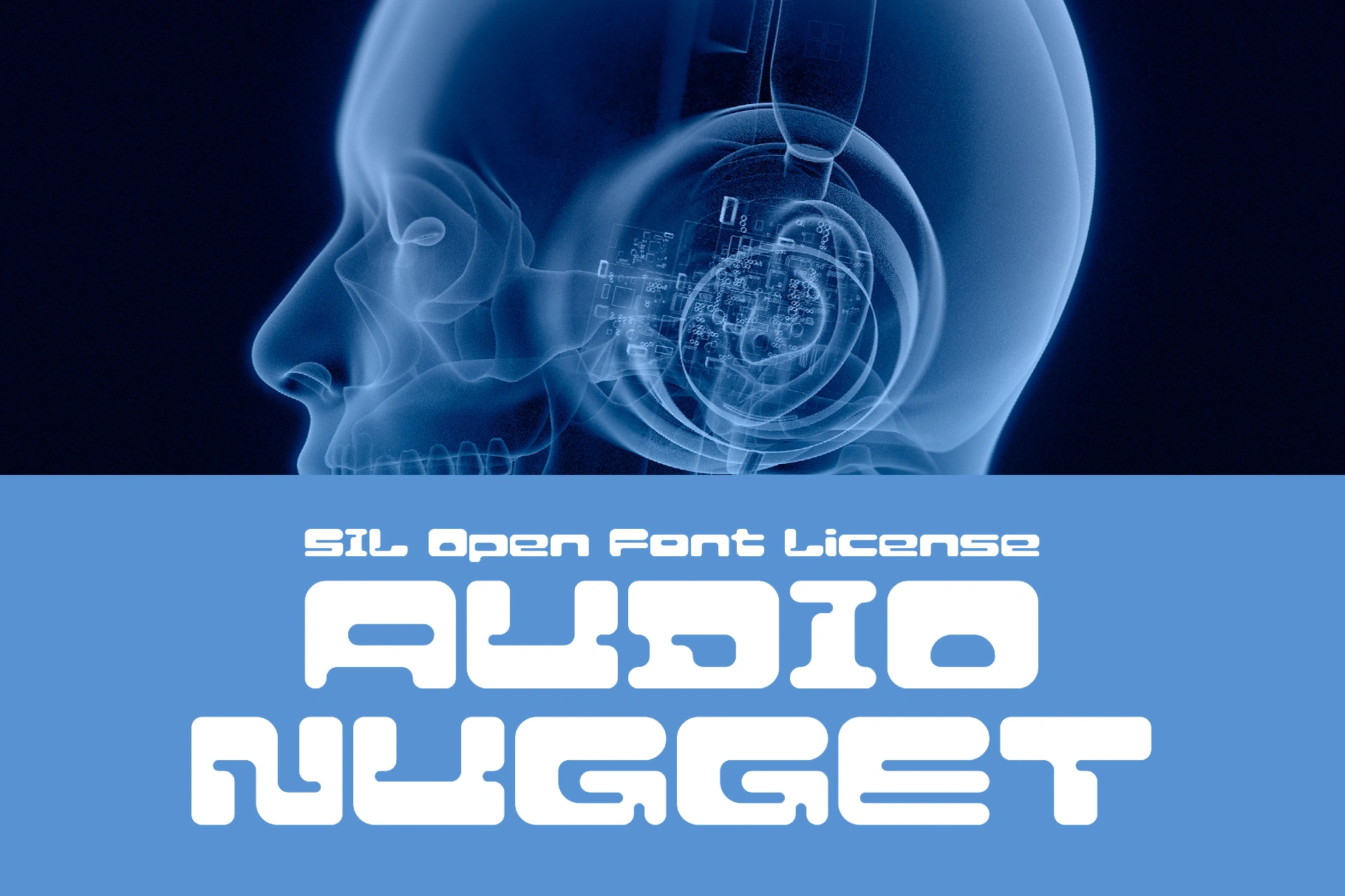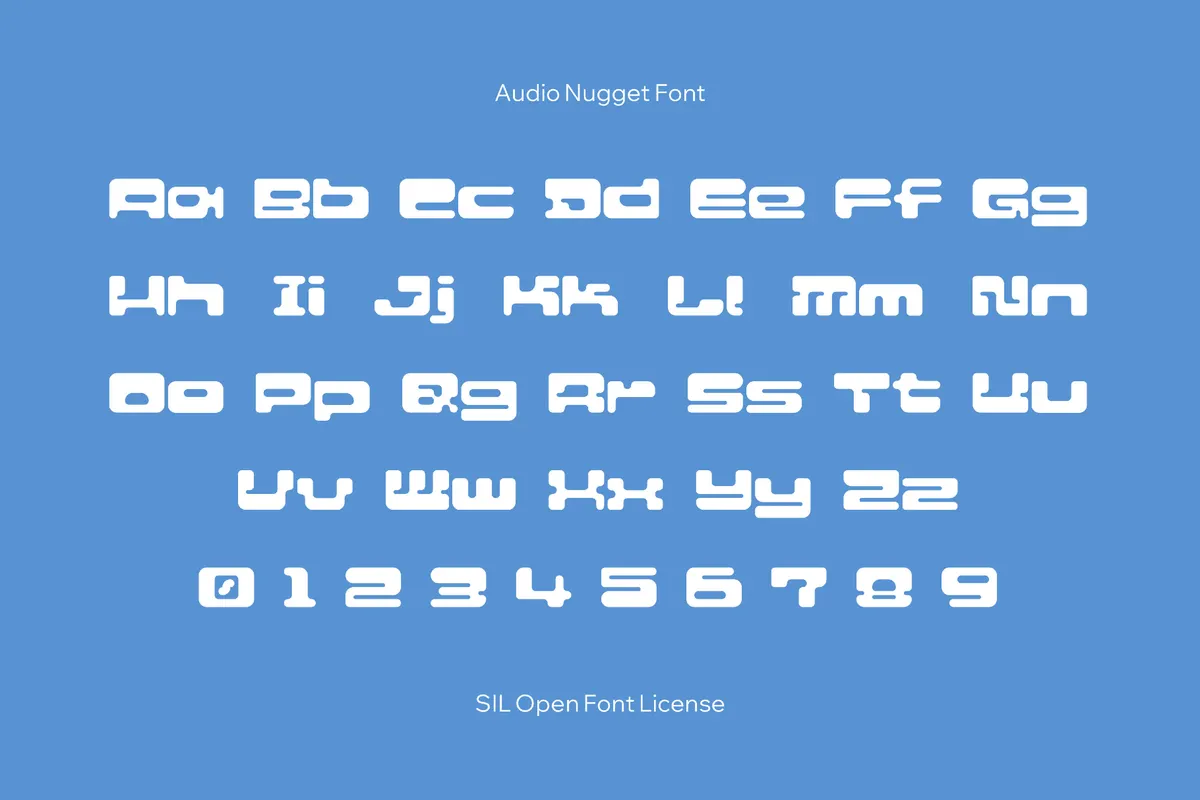
Audio Nugget Font
AudioNugget
Audio Nugget is a blobby techno display that turns Y2K typographic aesthetics into chunky geometric letters with rounded corners, a slightly expanded stance, and a loud, playful fit. It suits album artwork, podcast branding, retro packaging, poster headlines, gadget branding, retro web layouts, music festival identities, merch graphics, and animated title cards.
- Uppercase and lowercase Latin letters.
- Latin multilingual support with international characters in the Basic Latin.
- Additional Shavian characters for experimental writing and alt-text play.